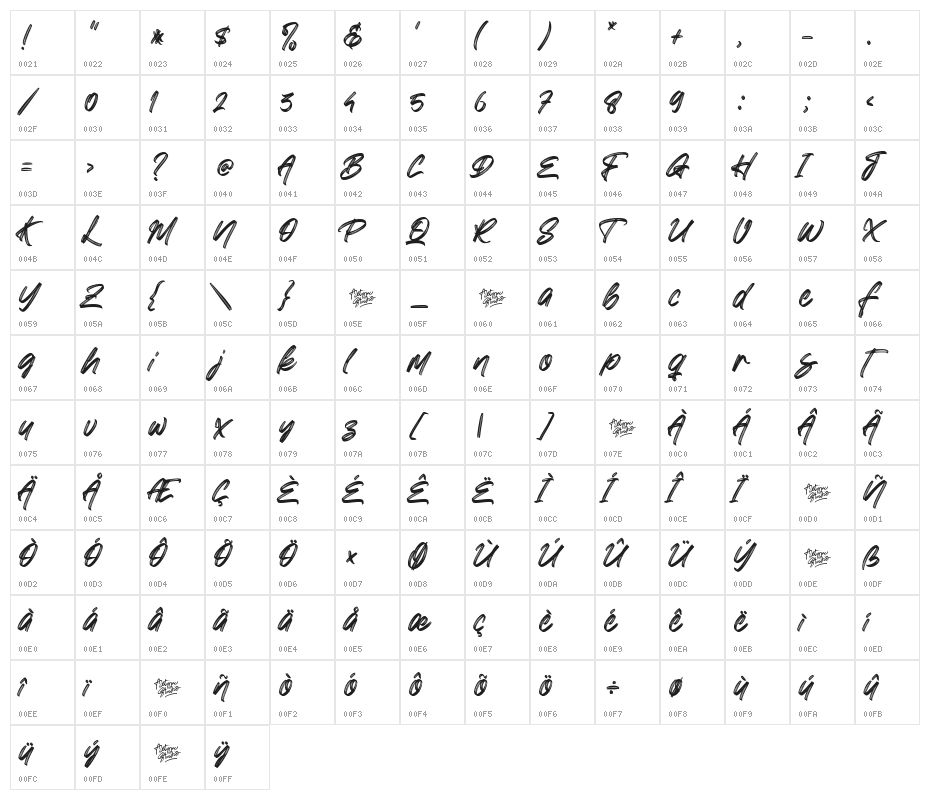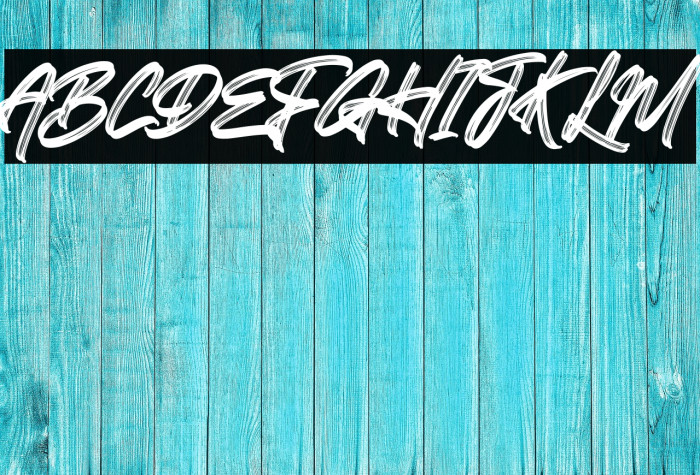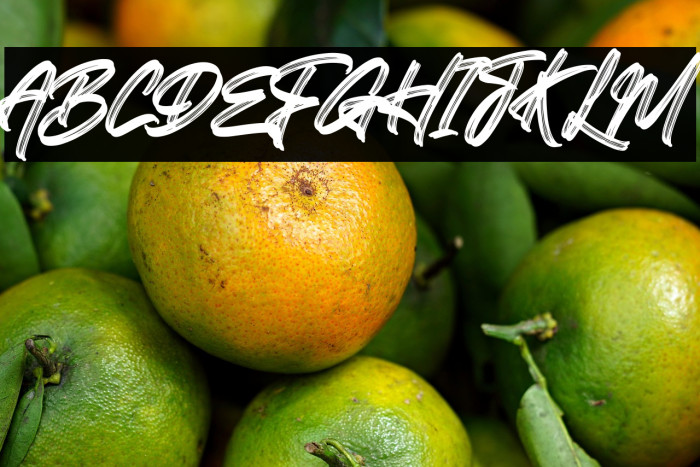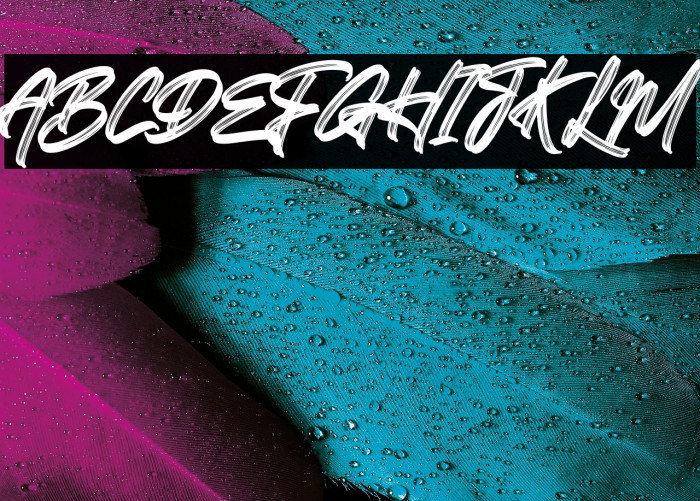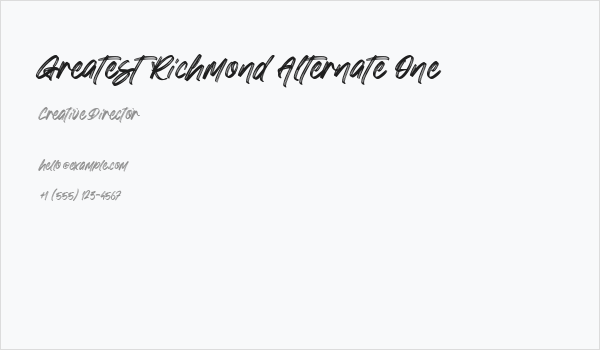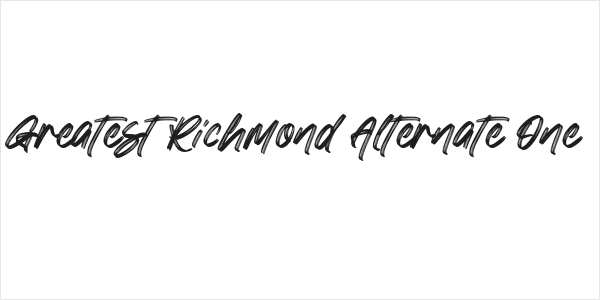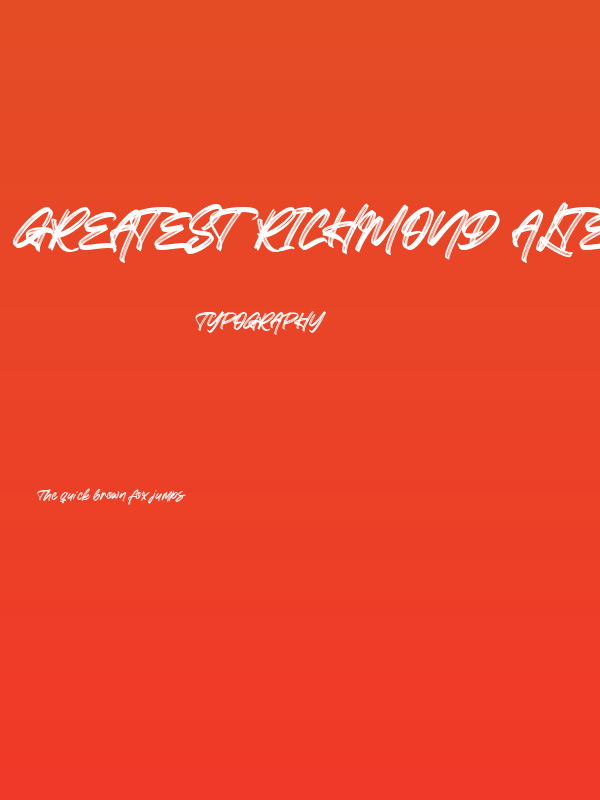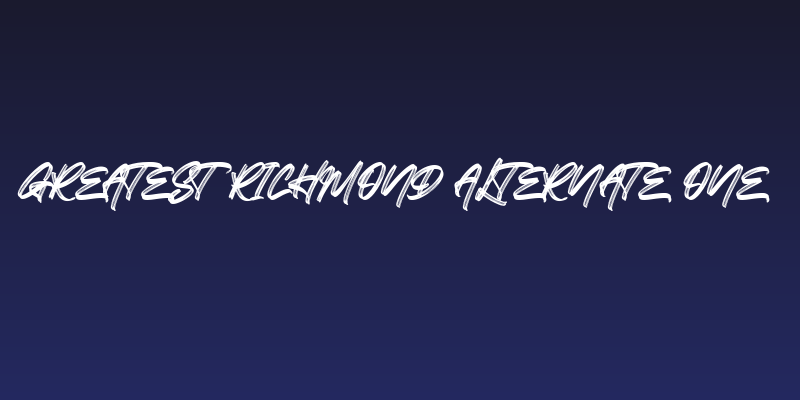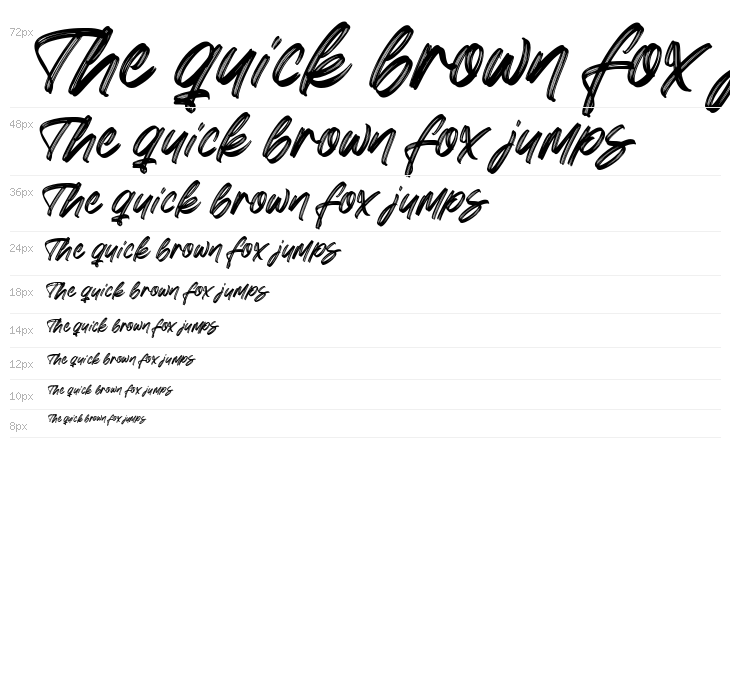
Greatest Richmond Alternate One Font
Greatest Richmond Alternate One Description
This font exudes a bold and dynamic handwritten style, characterized by its energetic and fluid strokes. The letters are crafted with a brush-like texture, giving them a lively and artistic appearance. The uppercase and lowercase letters maintain a consistent style, with a slight slant that adds to the overall movement and flow. Numbers and special characters are equally expressive, maintaining the same brush-stroke quality. The font's design is both modern and edgy, making it suitable for projects that require a personal and creative touch.
Overall StyleModern, Artistic
Proposed ProjectsIdeal for branding, posters, invitations, and any project that benefits from a personal, artistic touch.